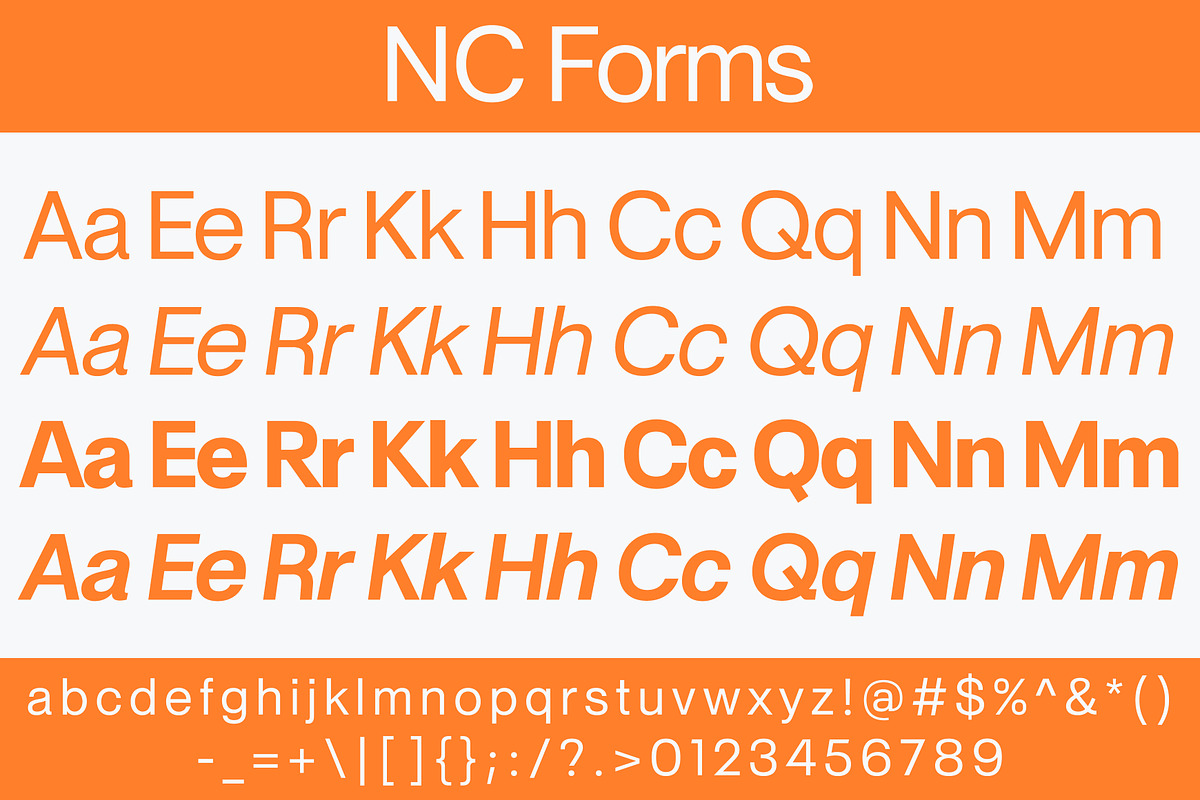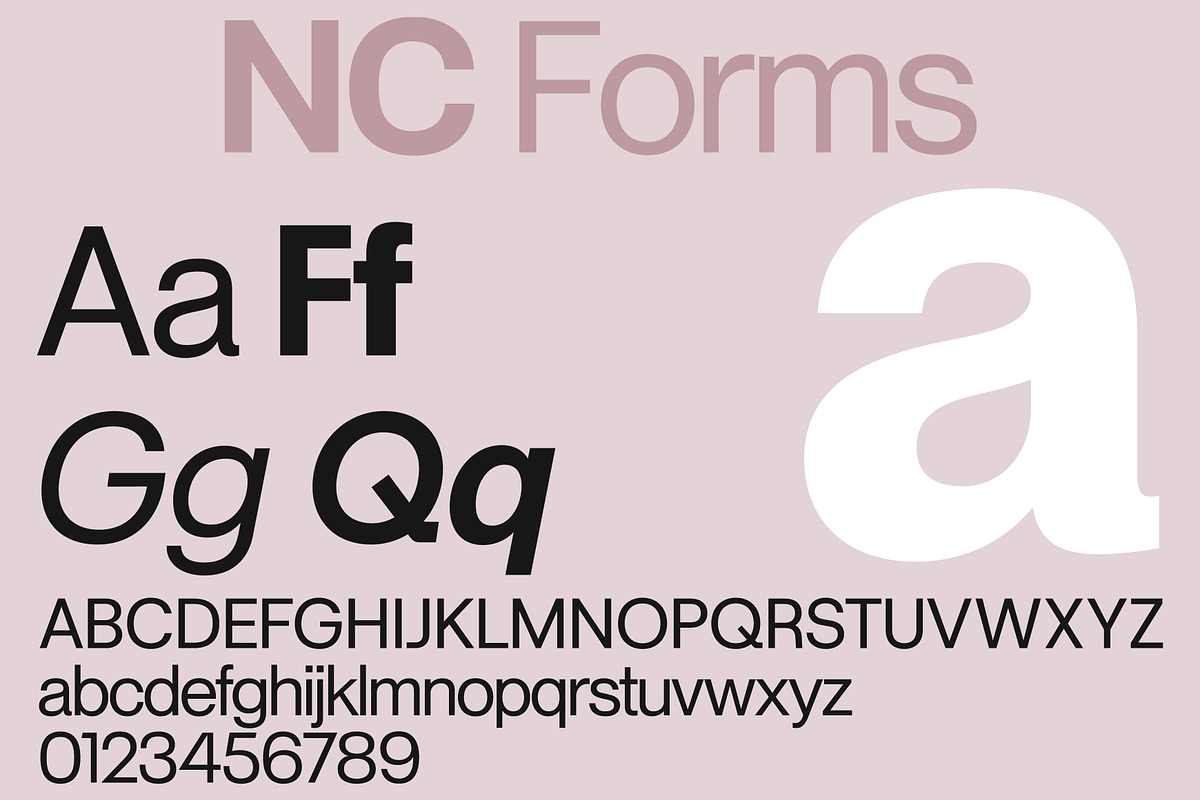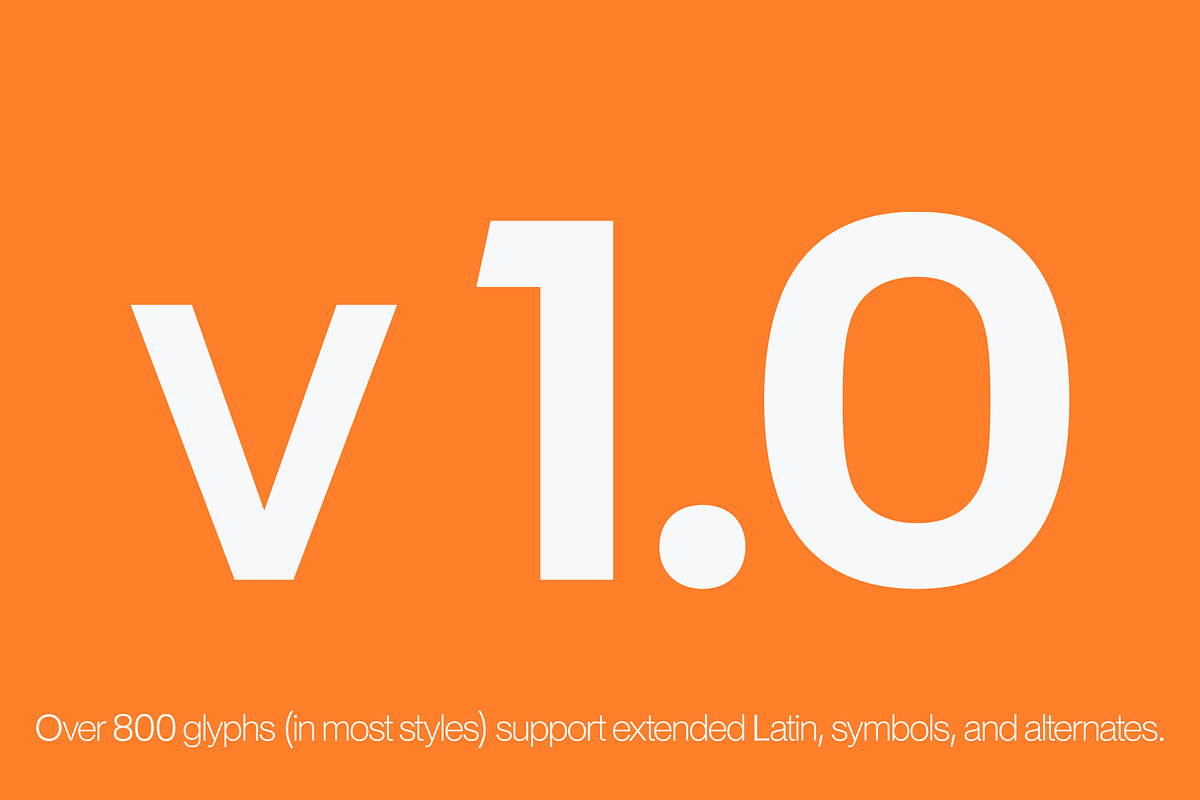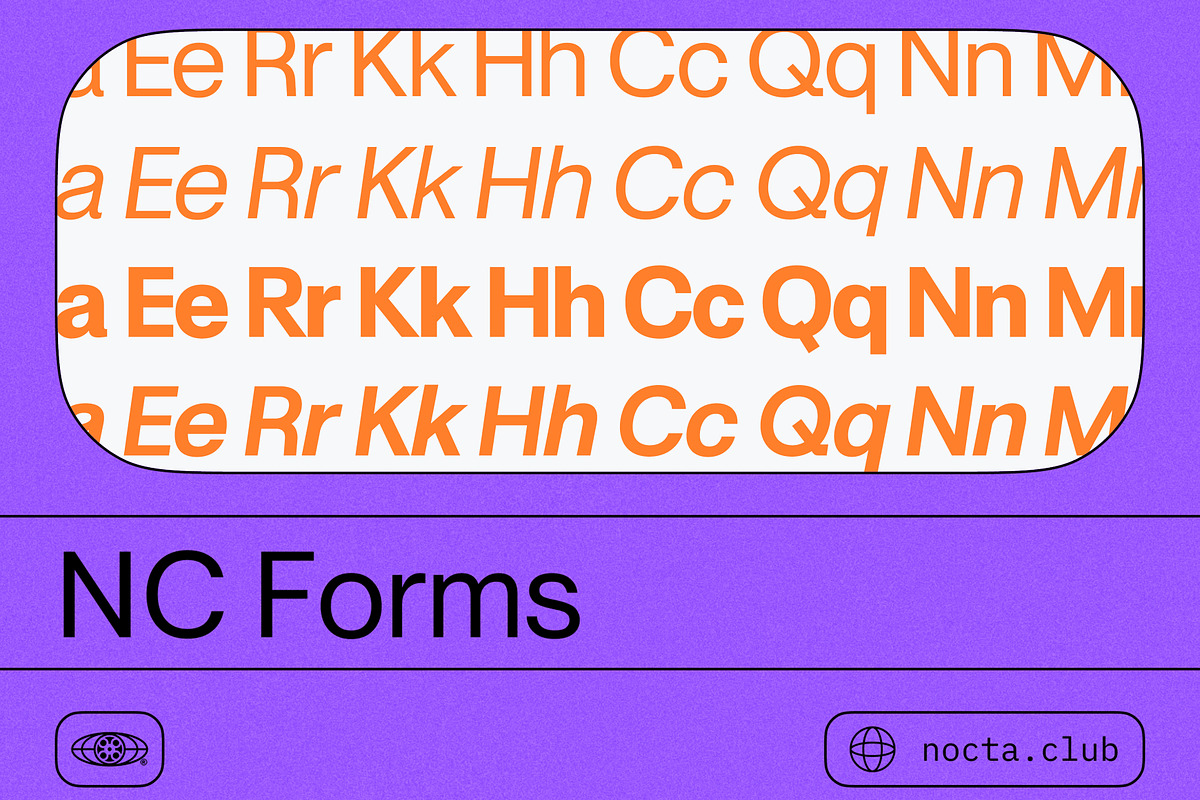
NC Forms — Modular Sans for Systems
NC Forms is a versatile sans-serif built for structure and clarity across identity systems, editorial compositions, and contemporary digital interfaces. It features a modular skeleton, consistent rhythm, and a tone that feels neutral yet deliberate. While rooted in modernist principles, Forms avoids cold minimalism by incorporating subtle curves and optical adjustments, making it a highly usable and aesthetically balanced typeface. Released in Regular and Italic styles, it's ideal for branding, UI work, signage, and functional print layouts.